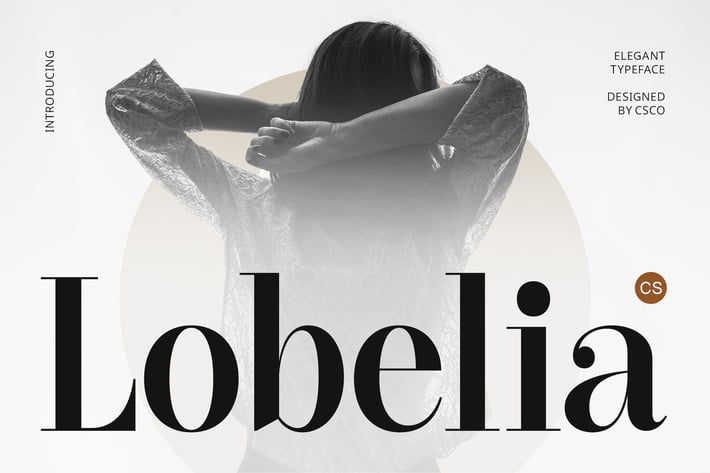
Lobelia – Classic Font
Lobelia – Classic Font: Timeless Elegance in Didone Style
Modern Classic Serif with High Contrast
CS Lobelia – Classic Font is a modern serif typeface inspired by the Didone style, featuring high contrast between thick and thin strokes. Its sharp, delicate serifs and refined letterforms create a look of pure elegance and sophistication, making it an excellent choice for luxury and high-end design projects.
Sleek and Well-Proportioned Design
Every character in CS Lobelia is crafted with precision and balance, ensuring a harmonious flow that enhances readability while maintaining an air of grace and beauty. The tall x-height, thin hairlines, and bold vertical strokes give the font a powerful yet delicate presence, ideal for editorial layouts, fashion branding, and premium packaging.
A Font That Embodies Luxury and Refinement
CS Lobelia captures the essence of timeless elegance, making it perfect for exclusive invitations, upscale branding, and editorial design. Whether used in magazines, logos, or formal stationery, its sophisticated appearance instantly elevates the overall aesthetic, ensuring a polished and luxurious impression.
Versatile for High-End Design Applications
Beyond its classic charm, CS Lobelia is versatile enough for both traditional and modern applications. Ideal for fashion houses, boutique brands, luxury advertising, and fine art publications, CS Lobelia is the perfect choice for those seeking a refined and high-class typography solution.